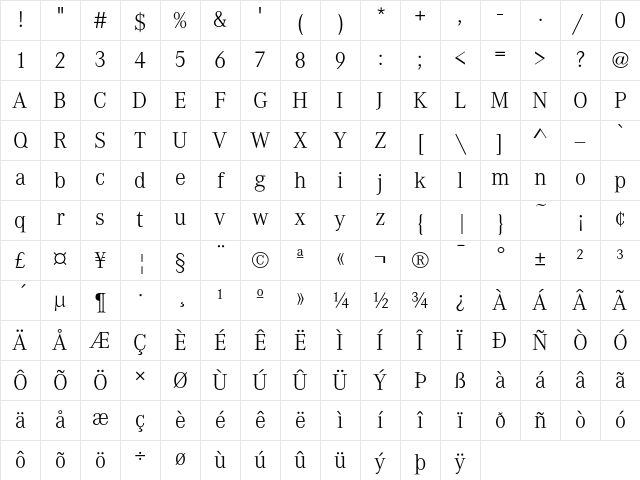
Complete Corporate A Light glyph index. Displaying only characters natively supported by Corporate A Light font.
Corporate A is a composed and adaptable typeface that performs quietly and consistently across a wide range of design contexts. Its slender proportions lend an understated elegance to any composition.